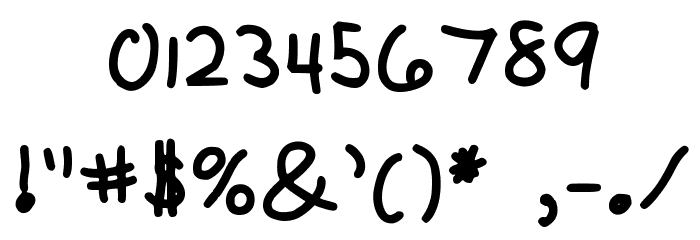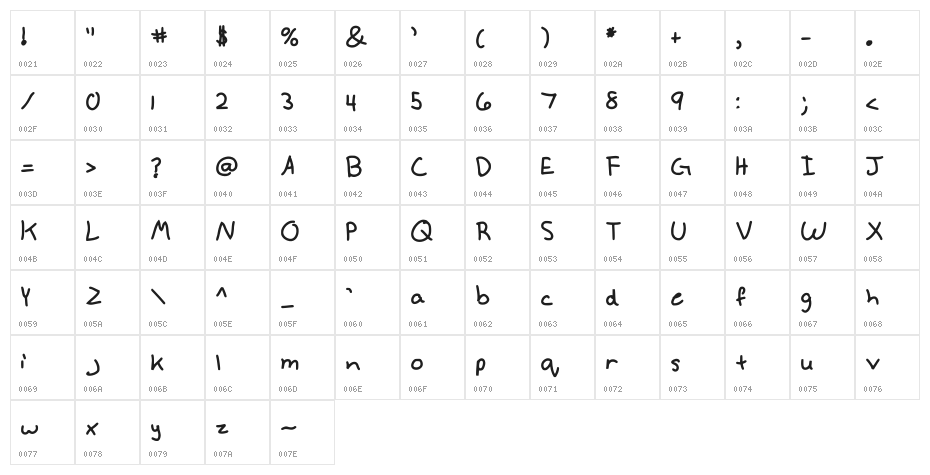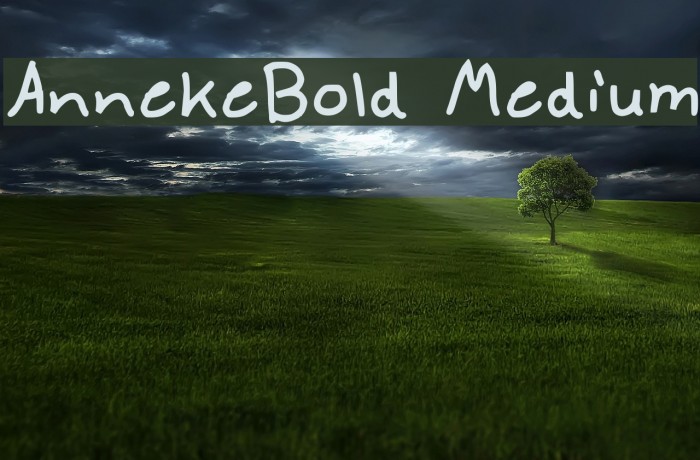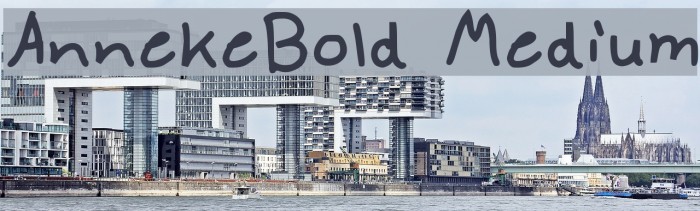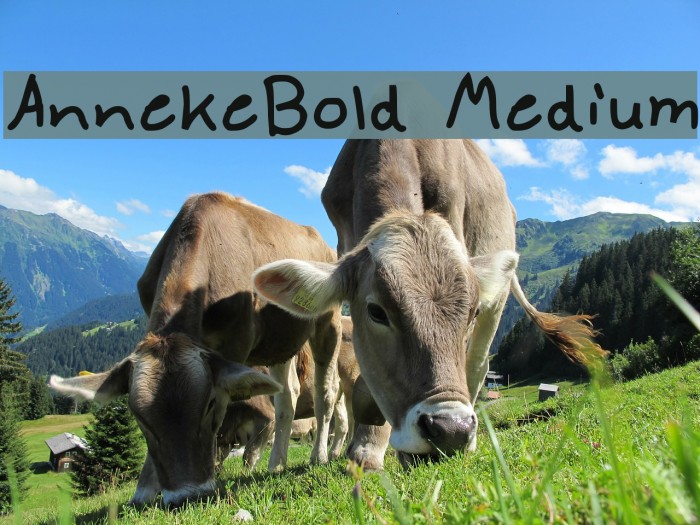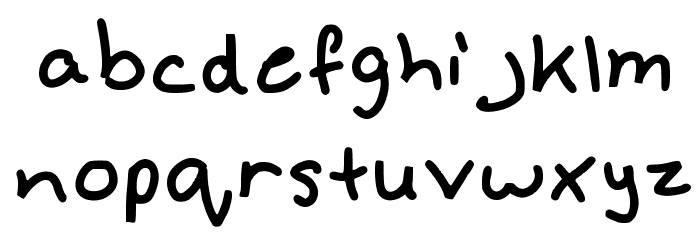
AnnekeBold Medium Font
AnnekeBold Medium Description
This font features a playful and casual handwritten style, characterized by its rounded and slightly irregular letterforms. The uppercase and lowercase letters maintain a consistent flow, giving it a friendly and approachable appearance. The numerals and special characters are designed with the same informal touch, making them blend seamlessly with the alphabet. The strokes are moderately thick, providing a bold presence without being overwhelming. This font's unique charm lies in its ability to convey a sense of warmth and personality, making it ideal for projects that require a personal touch.
| Use Case | Logos, Headlines, Informal text |
| Proposed Projects | Greeting cards, children's books, casual branding, personal blogs, and social media graphics. |